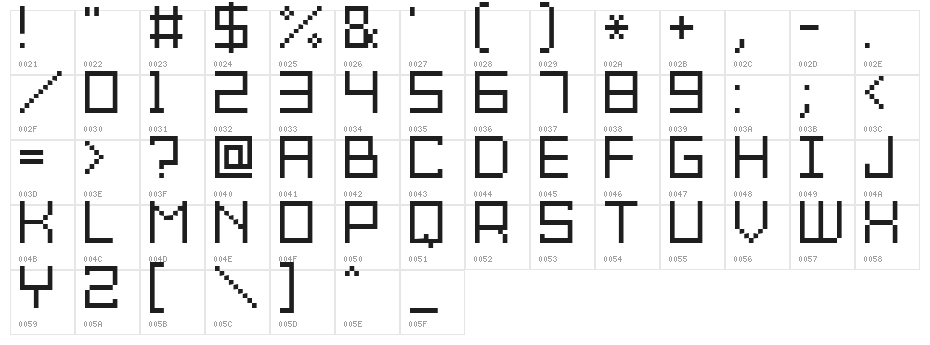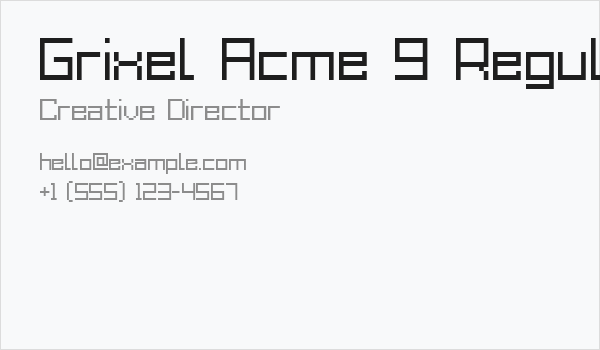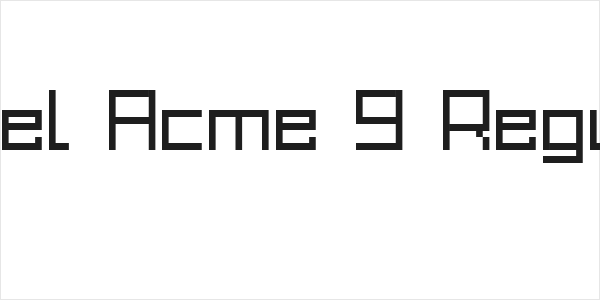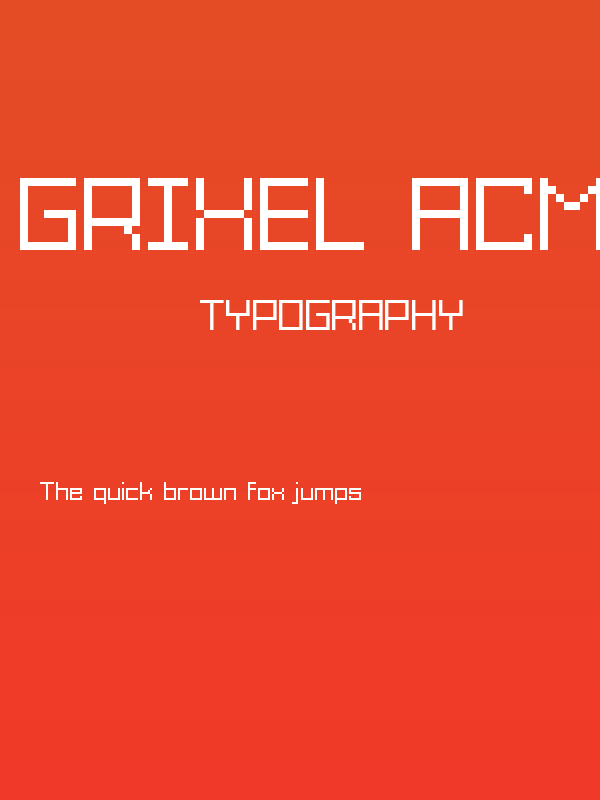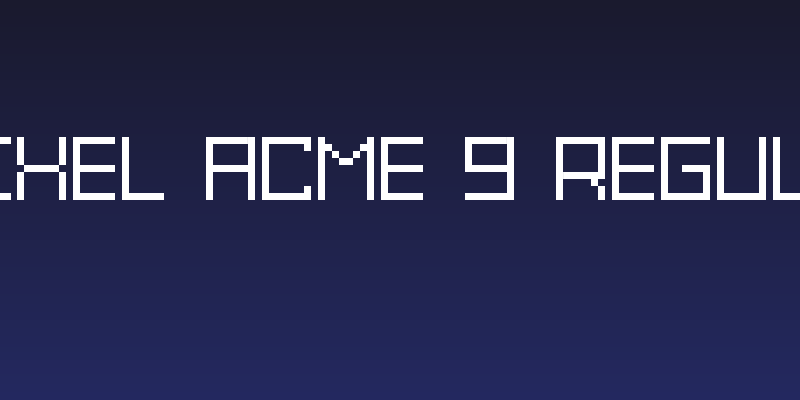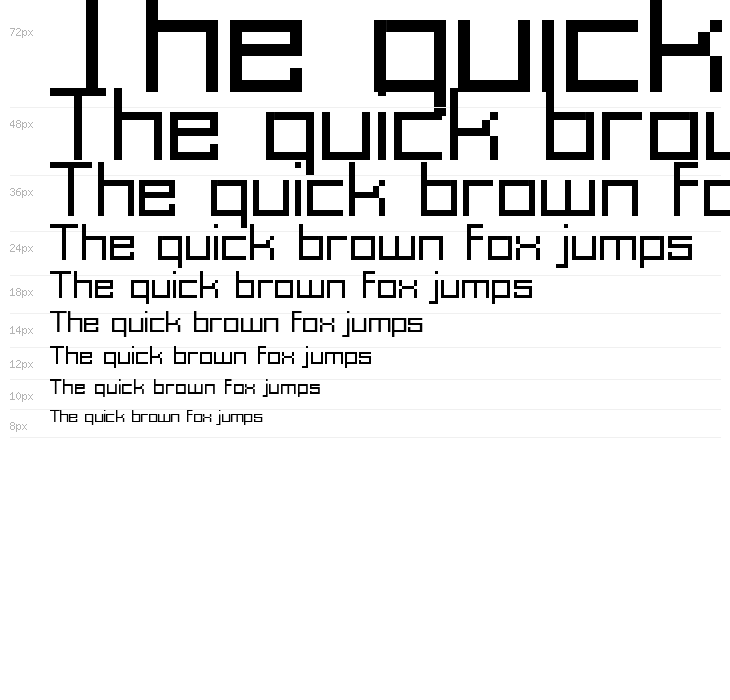
Grixel Acme 9 Regular Font
Grixel Acme 9 Regular Description
This font features a pixelated, grid-like design reminiscent of early digital displays and retro video games. Each character is constructed with a uniform stroke width, creating a cohesive and structured appearance. The geometric shapes and sharp angles give it a distinctly modern and technological feel, while the consistent line thickness ensures readability. The font maintains a balanced proportion between height and width, making it suitable for various digital applications. Its unique style is both nostalgic and futuristic, appealing to those looking for a distinctive and bold typeface.
| Use Case | Headlines, Logos, Digital displays |
| Proposed Projects | Ideal for video game design, tech-themed posters, digital art projects, and retro-style branding. |